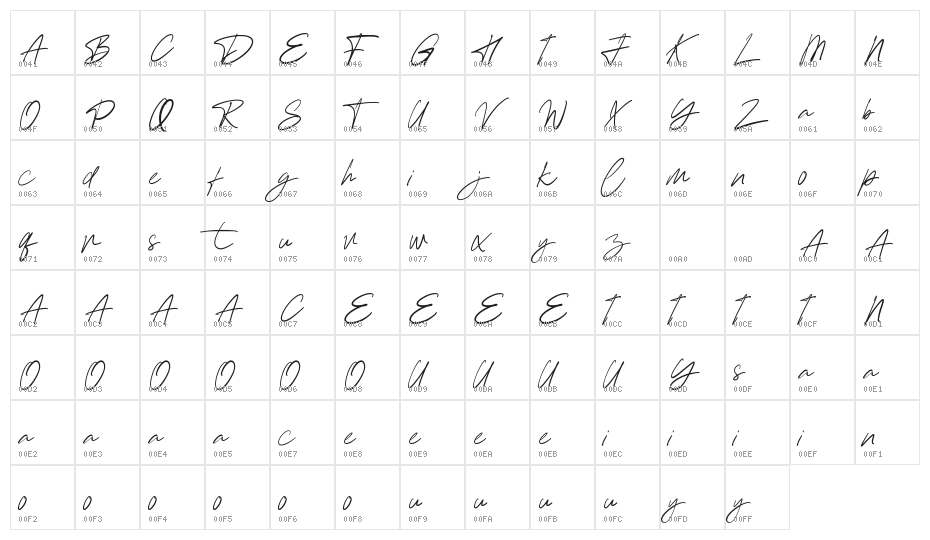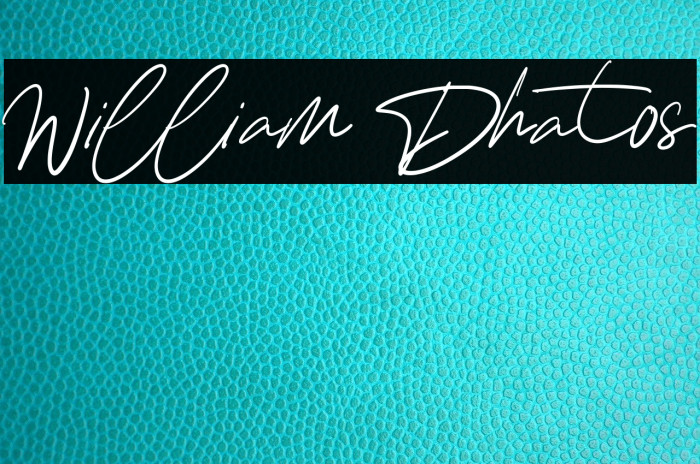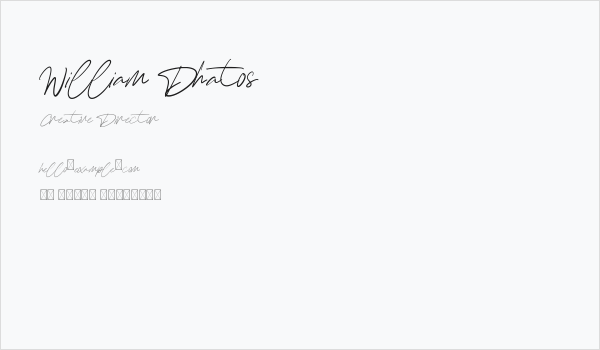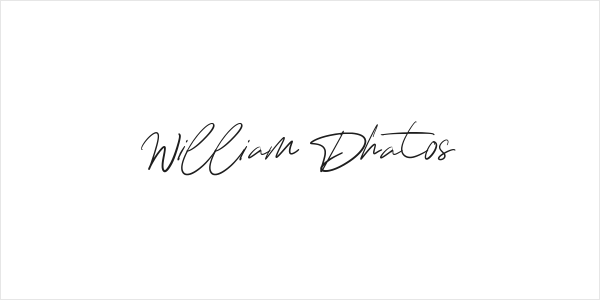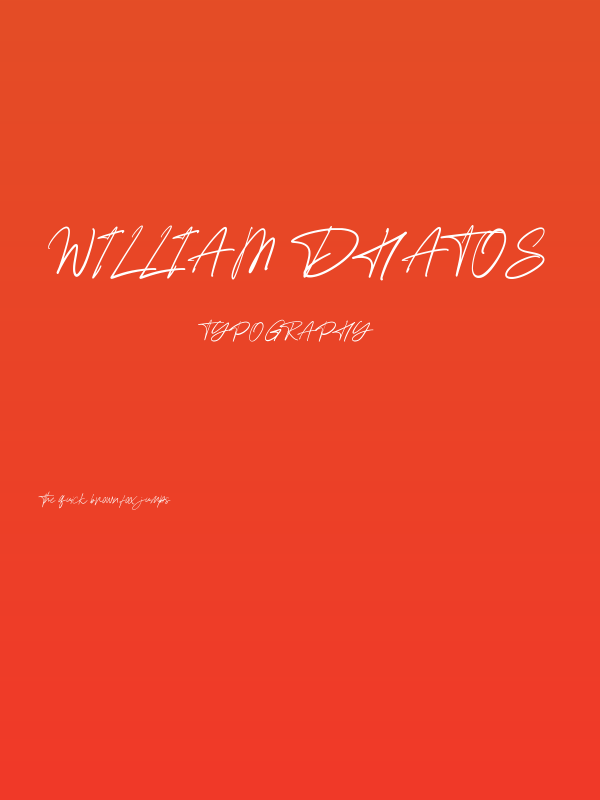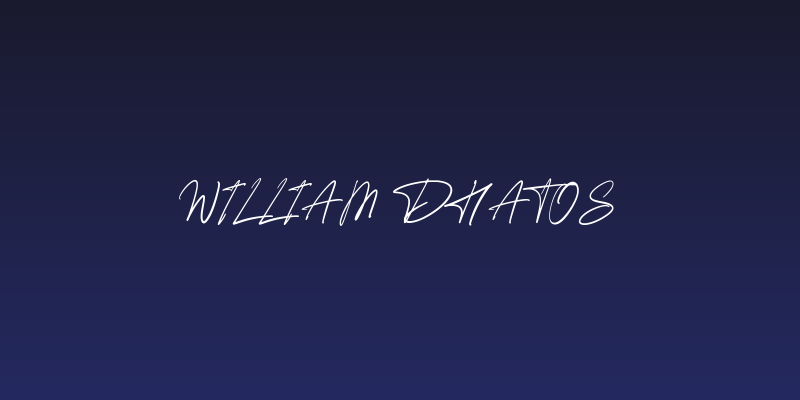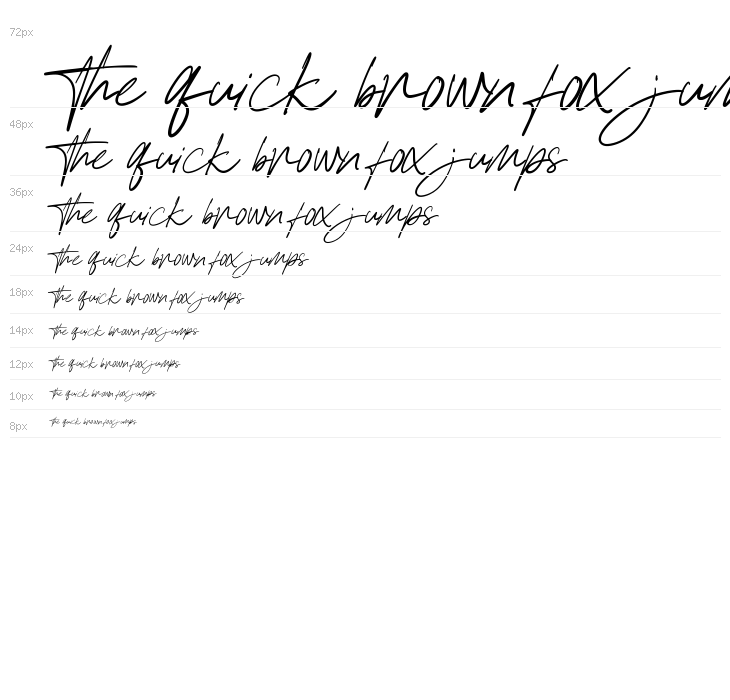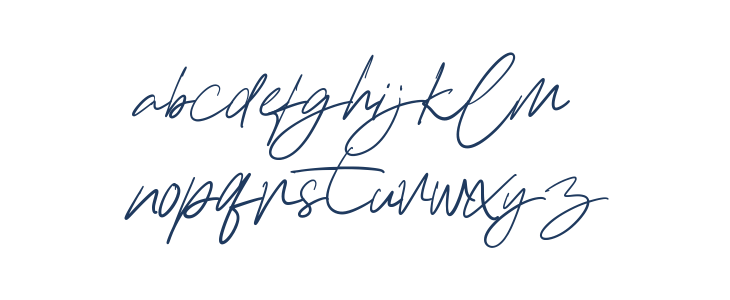
William Dhatos Font
William Dhatos Description
This font exudes a dynamic and expressive style, characterized by its fluid, cursive script that mimics the natural flow of handwriting. The letters are elegantly connected, creating a seamless and continuous appearance. The strokes vary in thickness, adding a sense of movement and energy to the text. This font's playful yet sophisticated nature makes it suitable for creative projects that require a personal touch. The overall aesthetic is both modern and artistic, with a hint of vintage charm, making it versatile for various design needs.
| Overall Style | Modern, Artistic |
| Proposed Projects | Ideal for wedding invitations, greeting cards, personal branding, and artistic posters. |